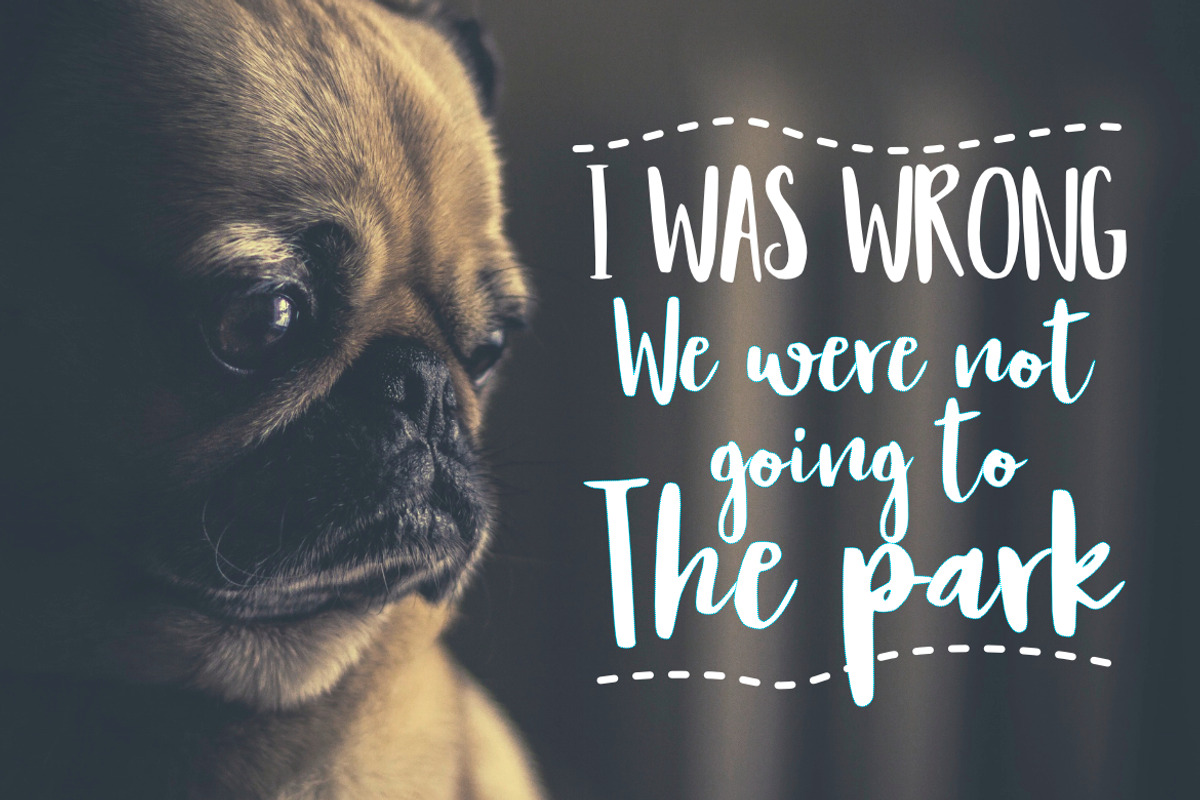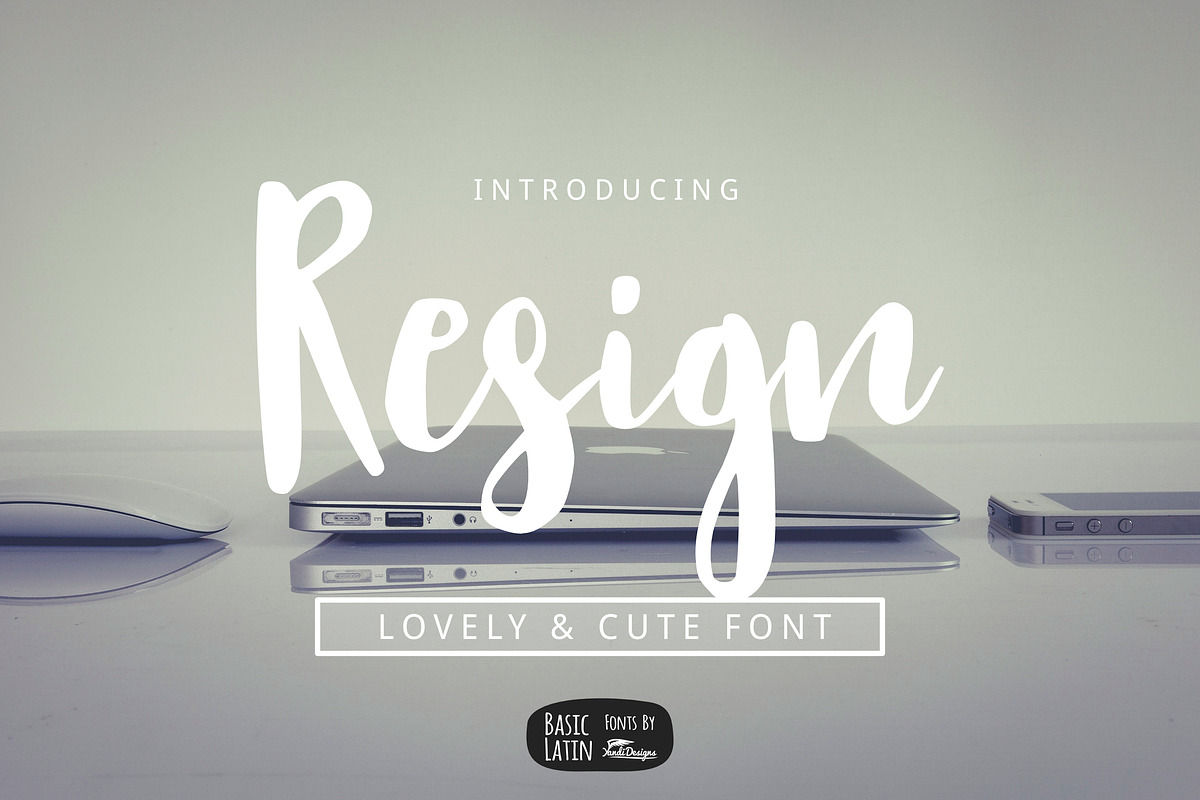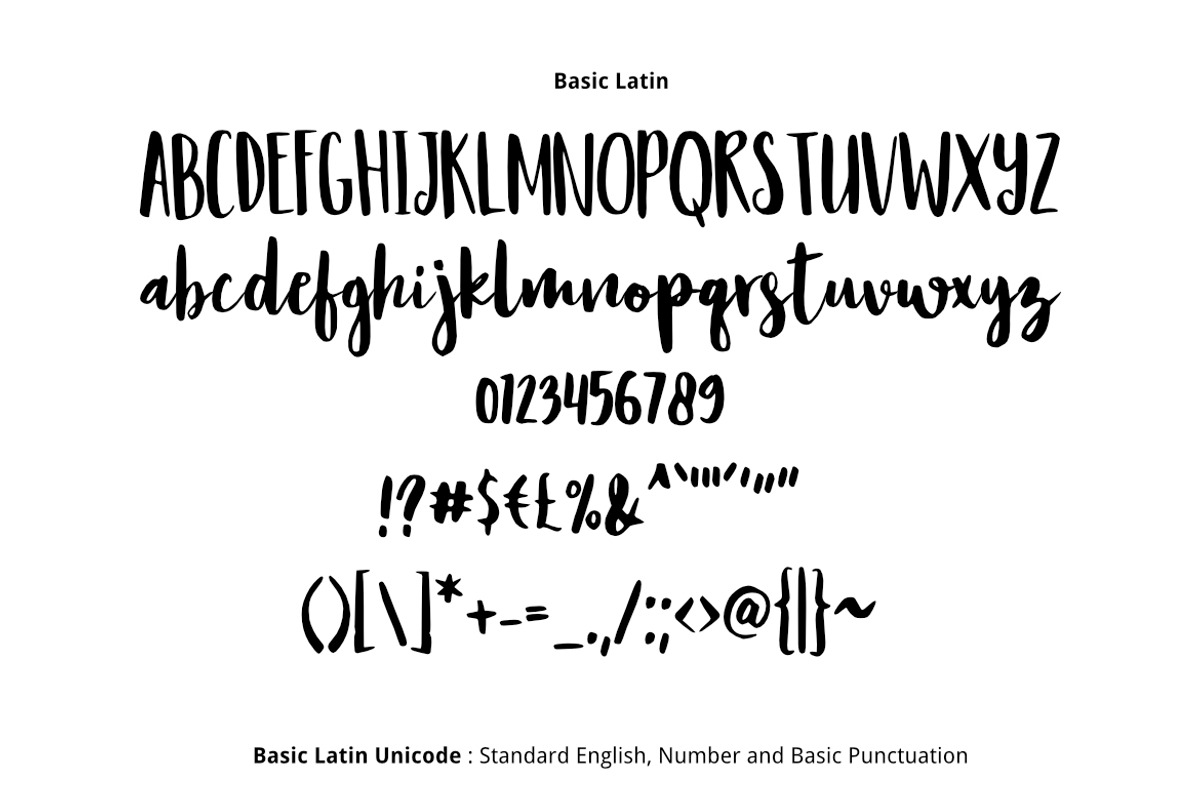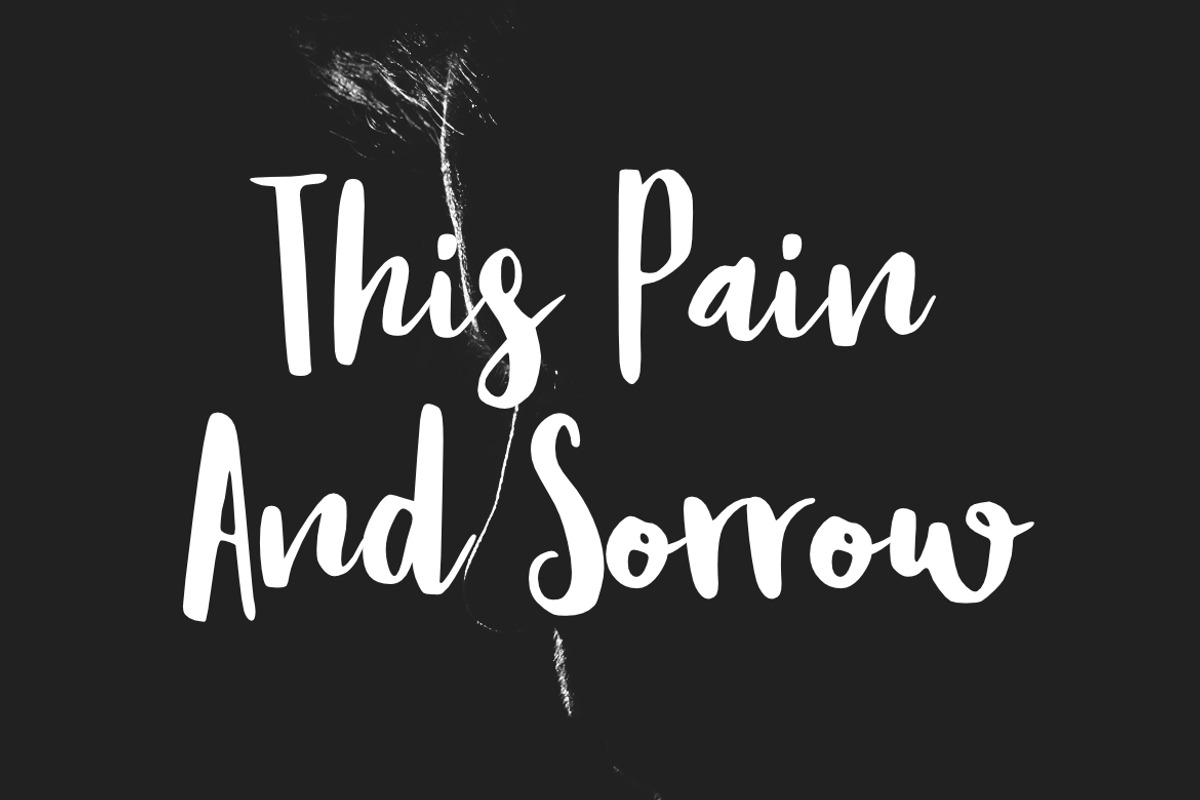
Resign Modern Brush Font
Resign is lovely ,cute, simple, modern, artistic multipurpose brush font , suitable for many project children book, quotes, logo , heading , title etc.
Why Resign Modern Brush Font is worth a look
Resign Modern Brush Font by YandiDesigns fits naturally into Branding, posters, packaging, typography.